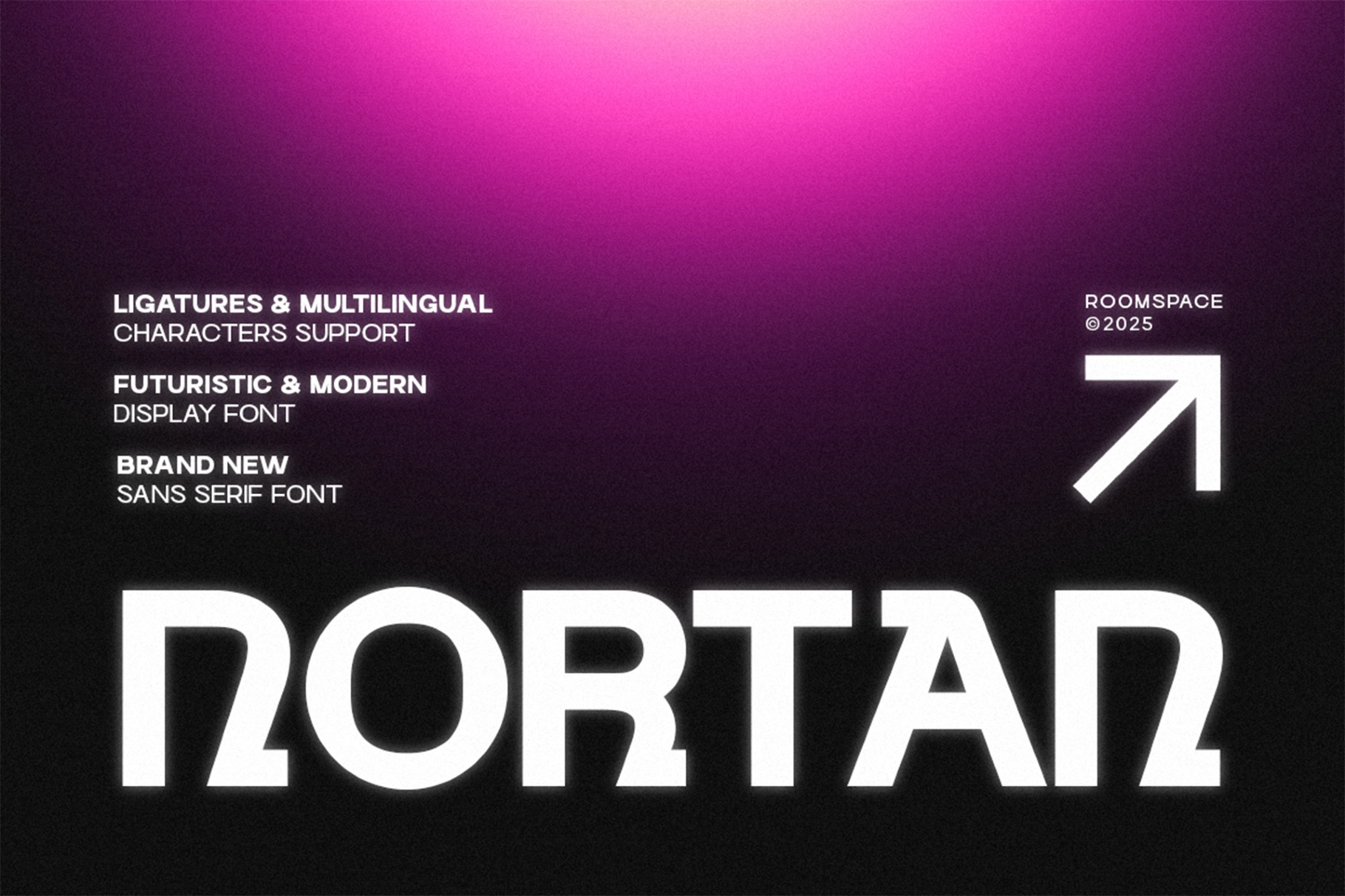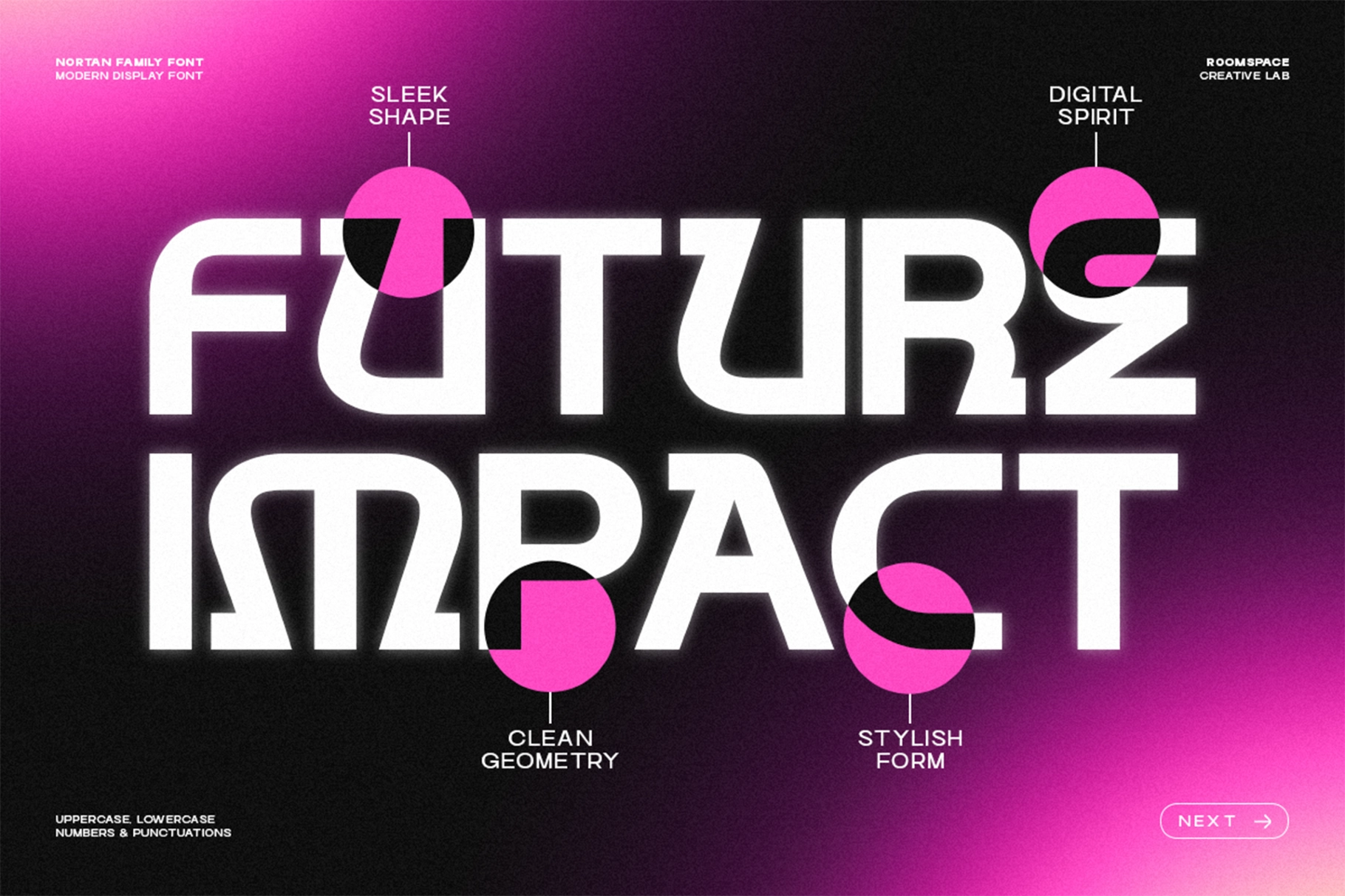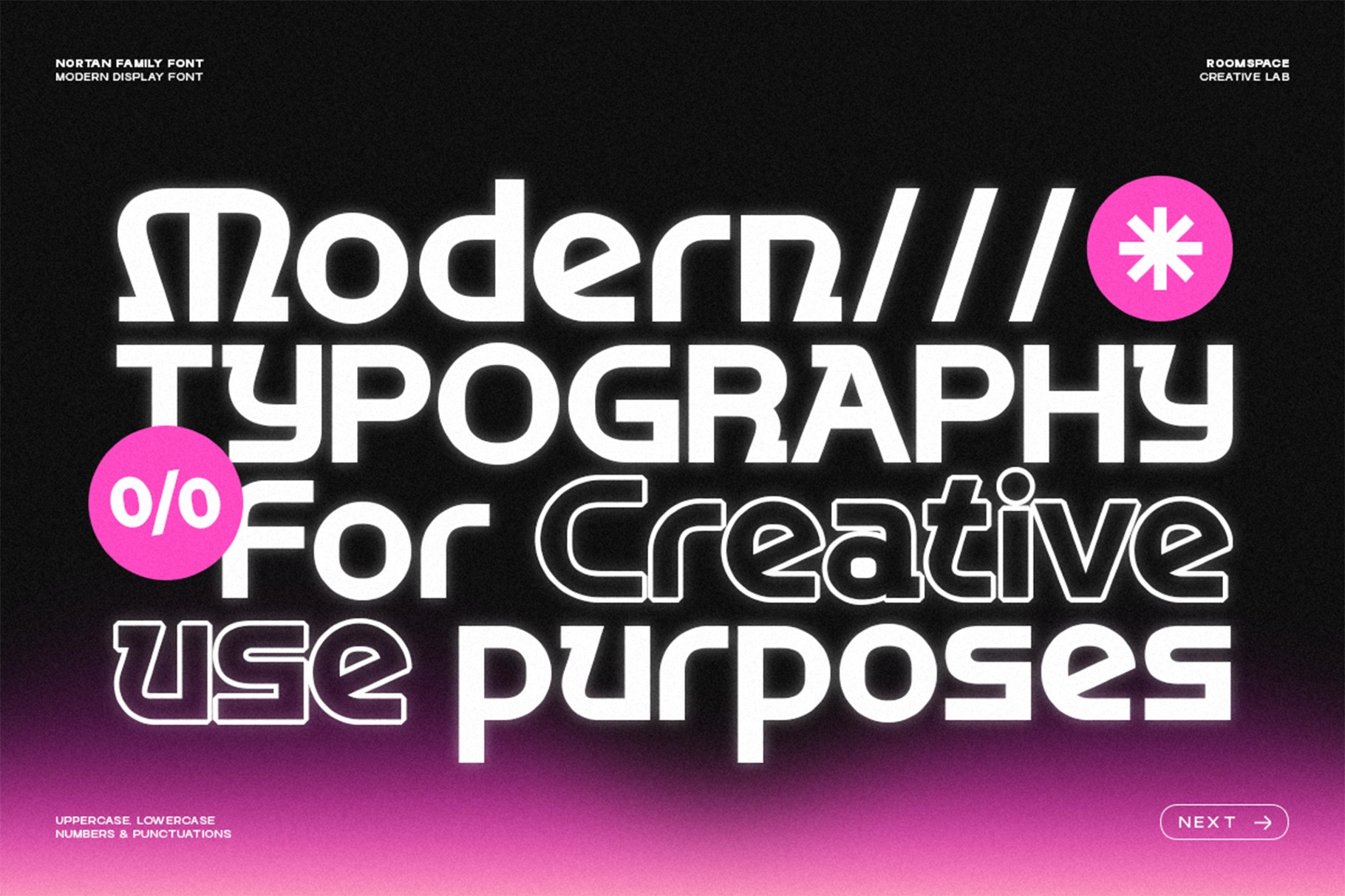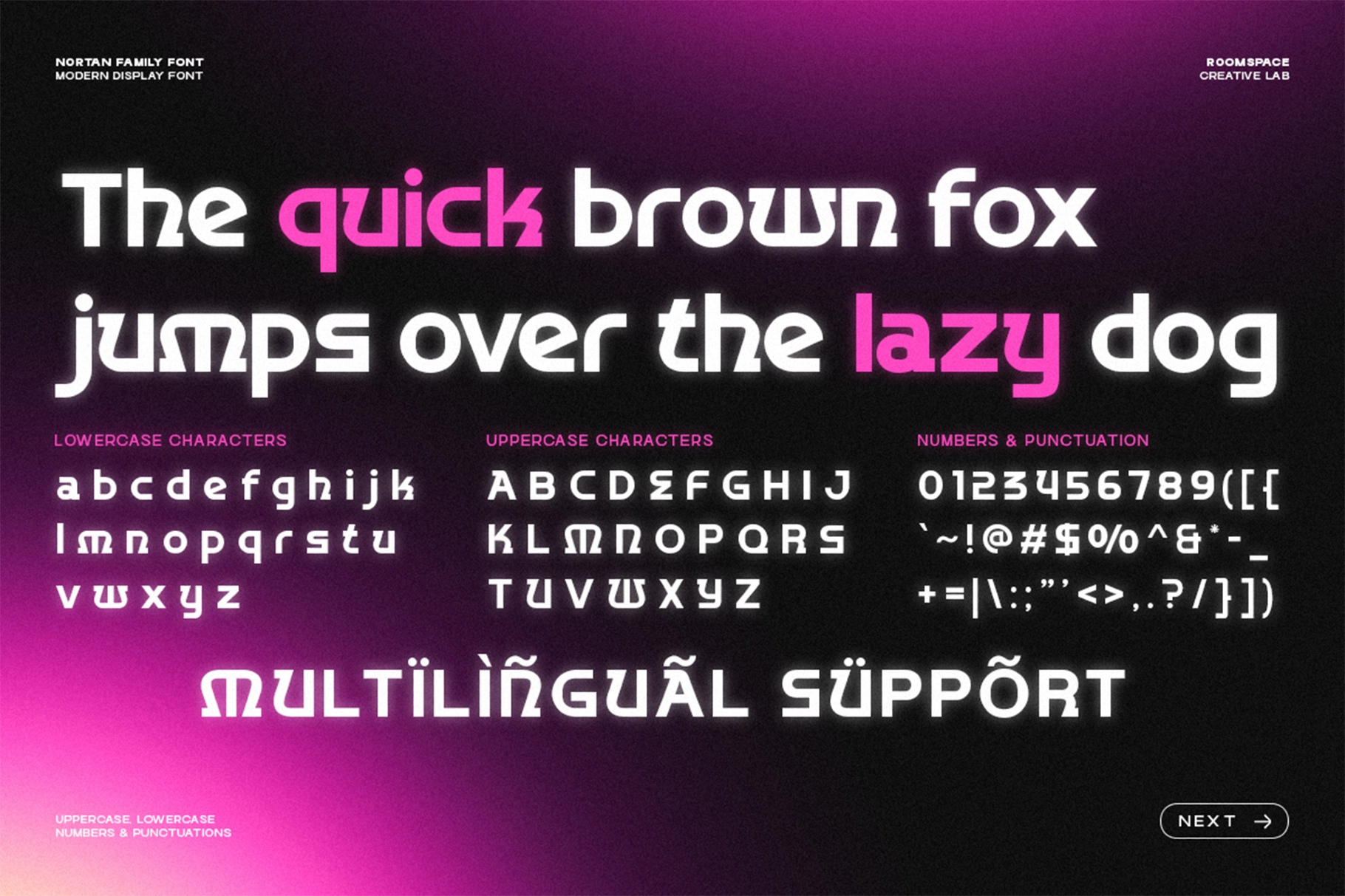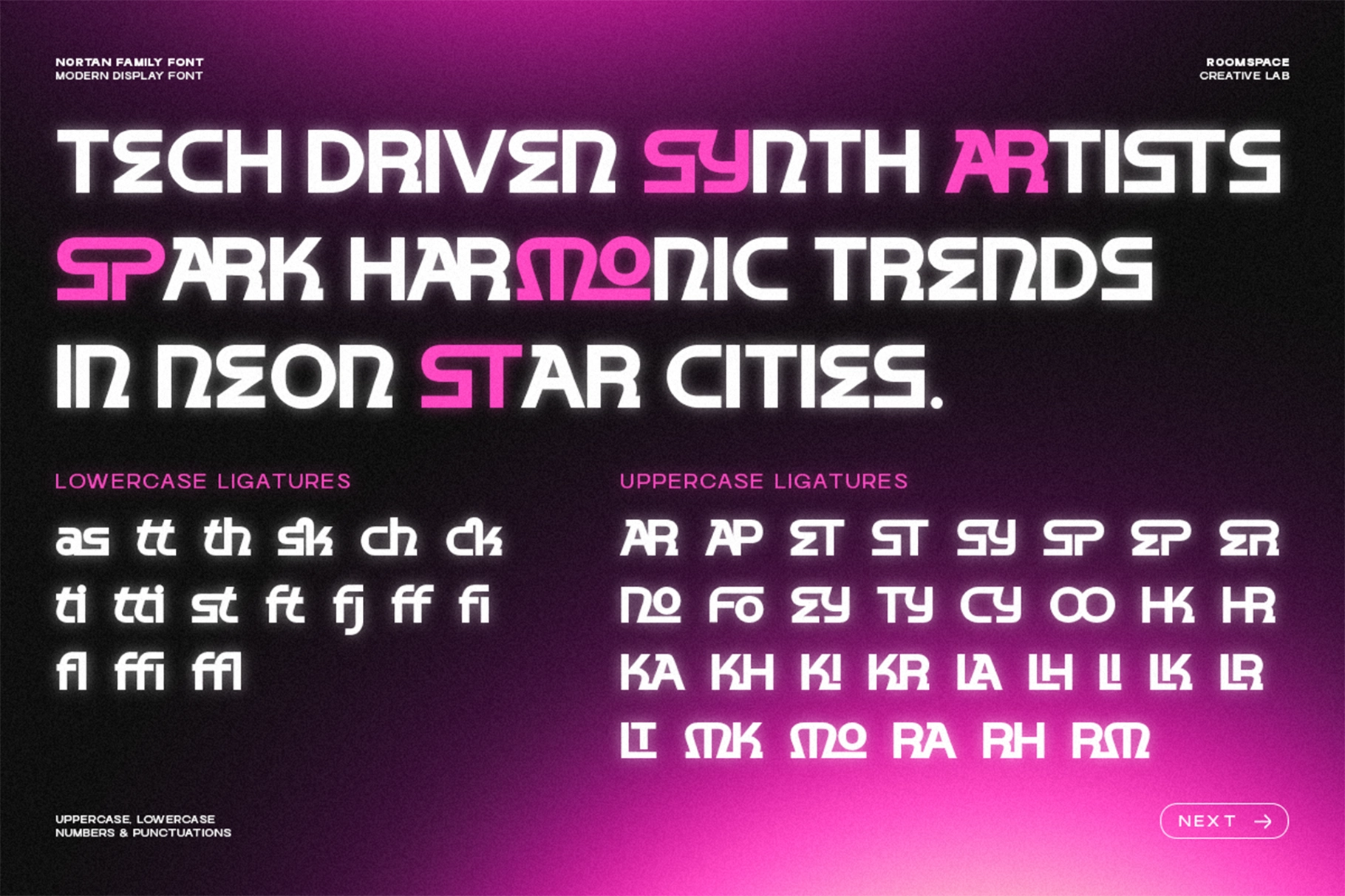
Nortan – Futuristic Display Sans Font
Nortan sits in the territory of late-90s eurohouse sleeve lettering and Y2K interface typography — the kind of ultra-bold geometric sans that read equally well on a CRT monitor and a rave poster. The letterforms are wide and circular, with large open counters, flat-cut terminals, and signature diagonal cuts on N, M, and S that push the construction away from neutral grotesque and into something closer to a display instrument. As a futuristic display font it goes loud without going illegible, keeping optical rhythm steady across all-caps headlines and mixed-case settings alike.
Nortan works best in short, confident runs: campaign headlines, logo wordmarks, album titles, game UI overlays. Use it for tech brand identities, event posters, digital product launches, music packaging, gaming visuals, app marketing pages, and sci-fi editorial layouts.
• 2 styles: regular, outline;
• Uppercase & lowercase;
• Numerals, punctuation & symbols;
• Discretionary ligatures;
• Ordinals & superscript numerals;
• Multilingual support;
• 276 glyphs per style